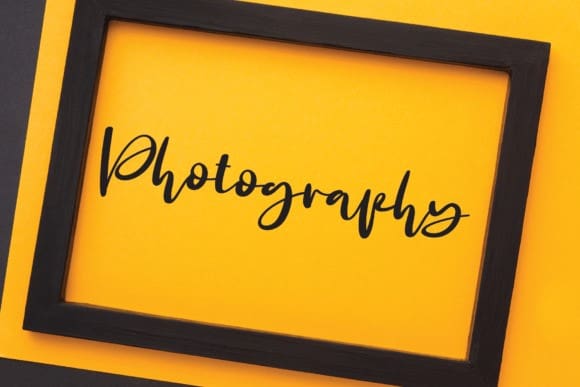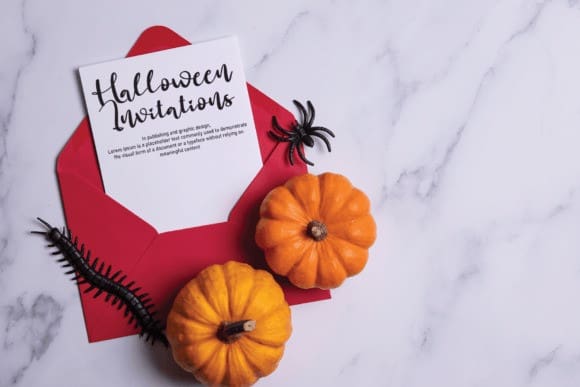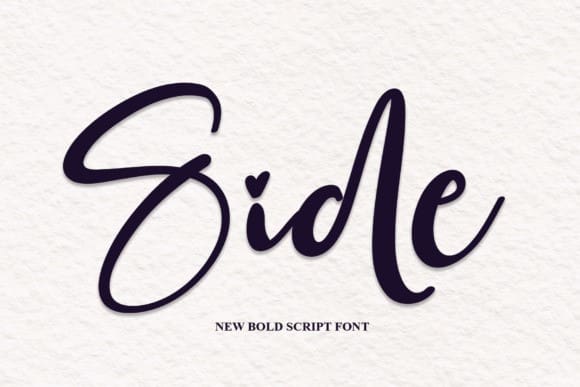
Side Script Font
Side Script Font, is a sweet and cursive handwritten font. This gentle font will look gorgeous on a variety of design ideas. It will add a joyful and romantic touch to each of your projects! Perfectly fit for branding, logo, wedding things, greeting cards, fashion, lookbook, marketing promotion, anytime you want to look fancy elegant but still casual.